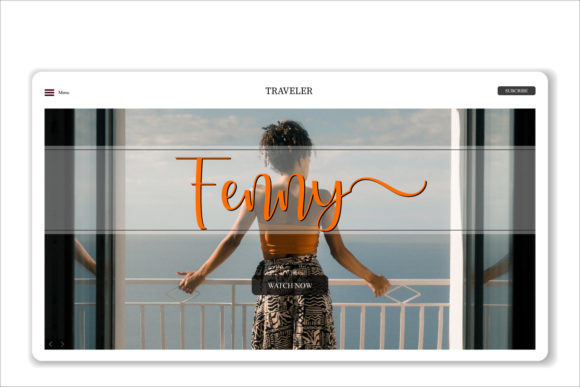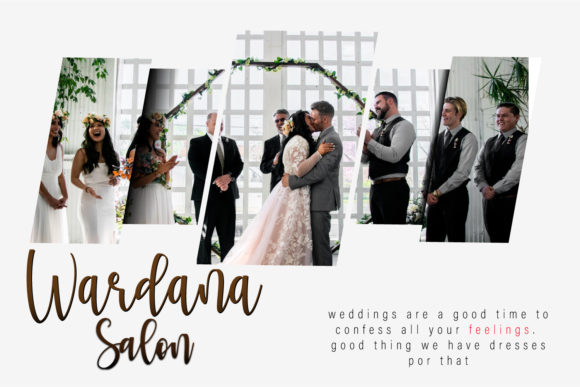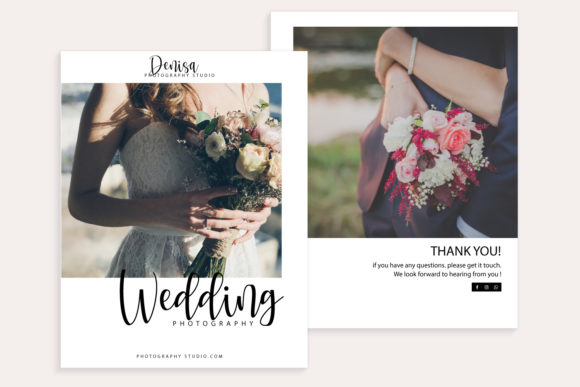
About Fernynda Font
Fernynda is a relaxed and incredibly distinct handwritten font. It is PUA encoded which means you can access all of the glyphs and swashes with ease! Fall in love with its beautiful and sylish feel and use it to create gorgeous wedding invitations, beautiful stationary art, eye-catching social media posts, and much more!